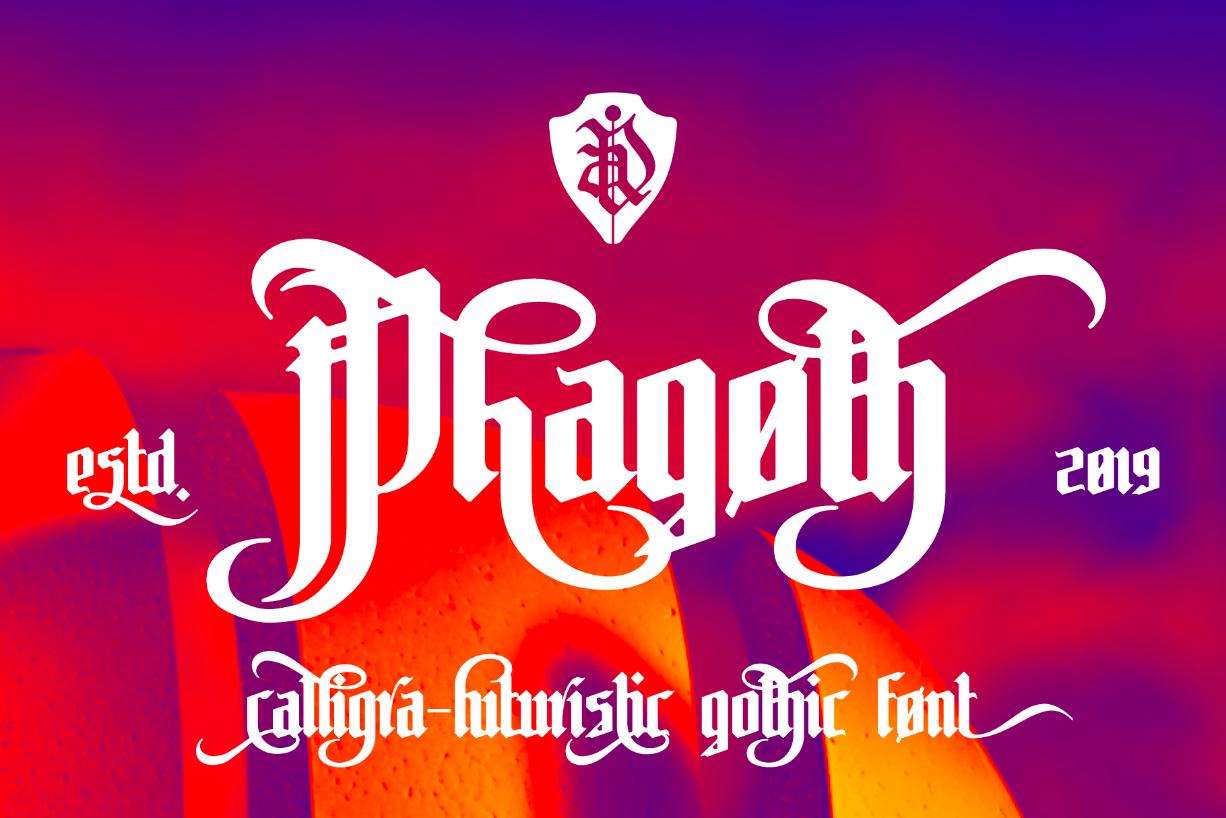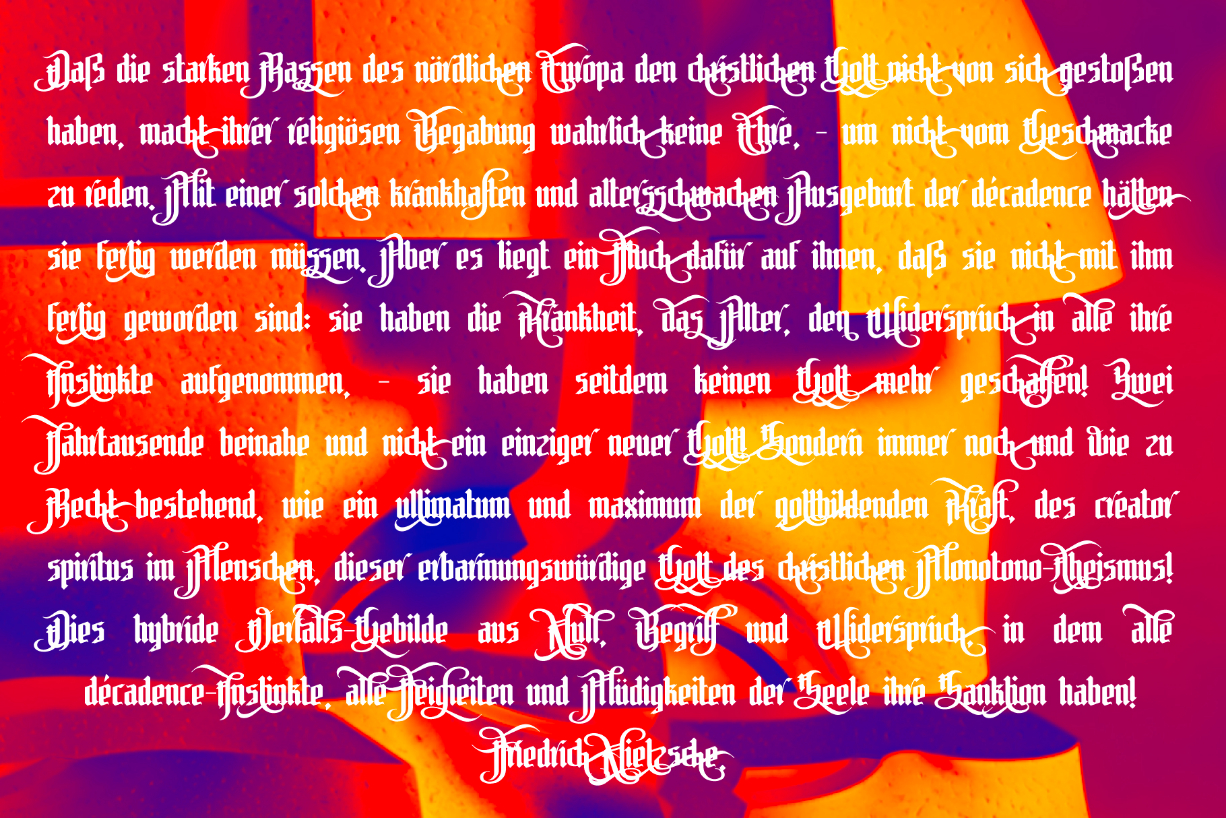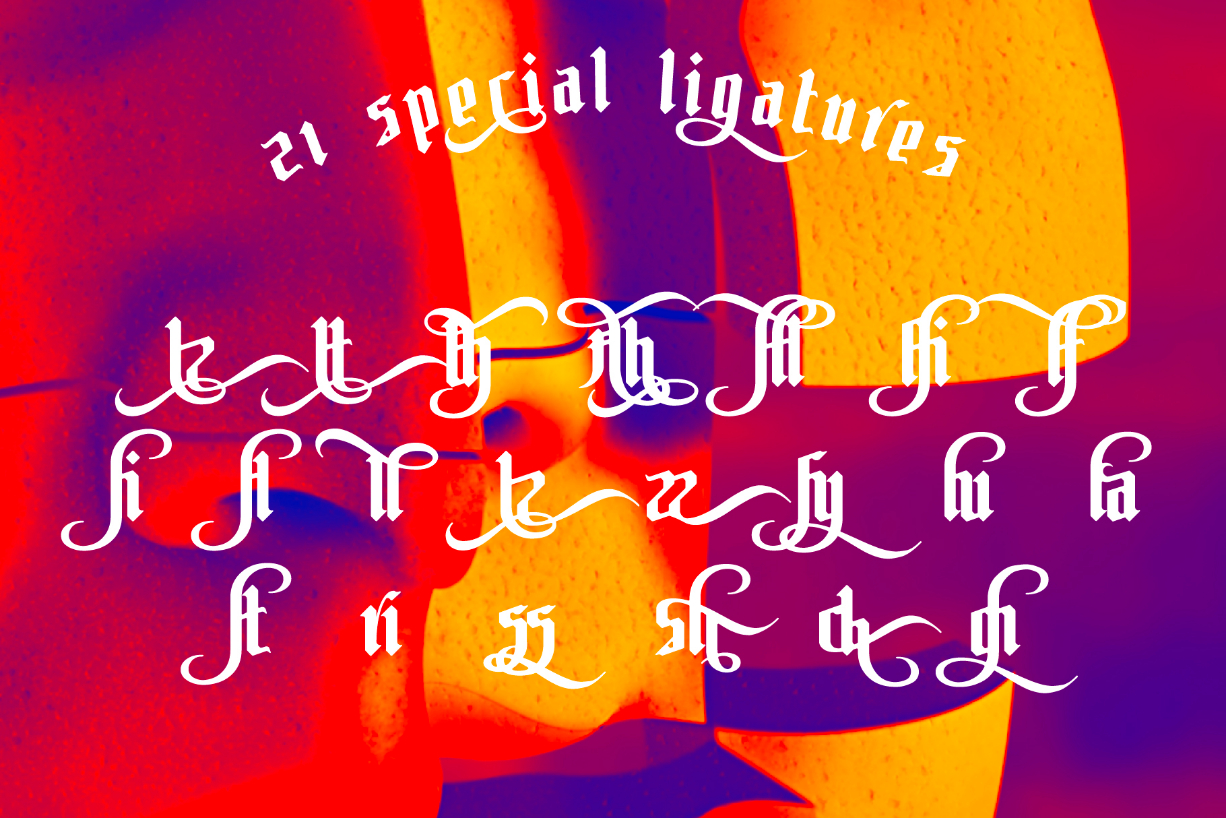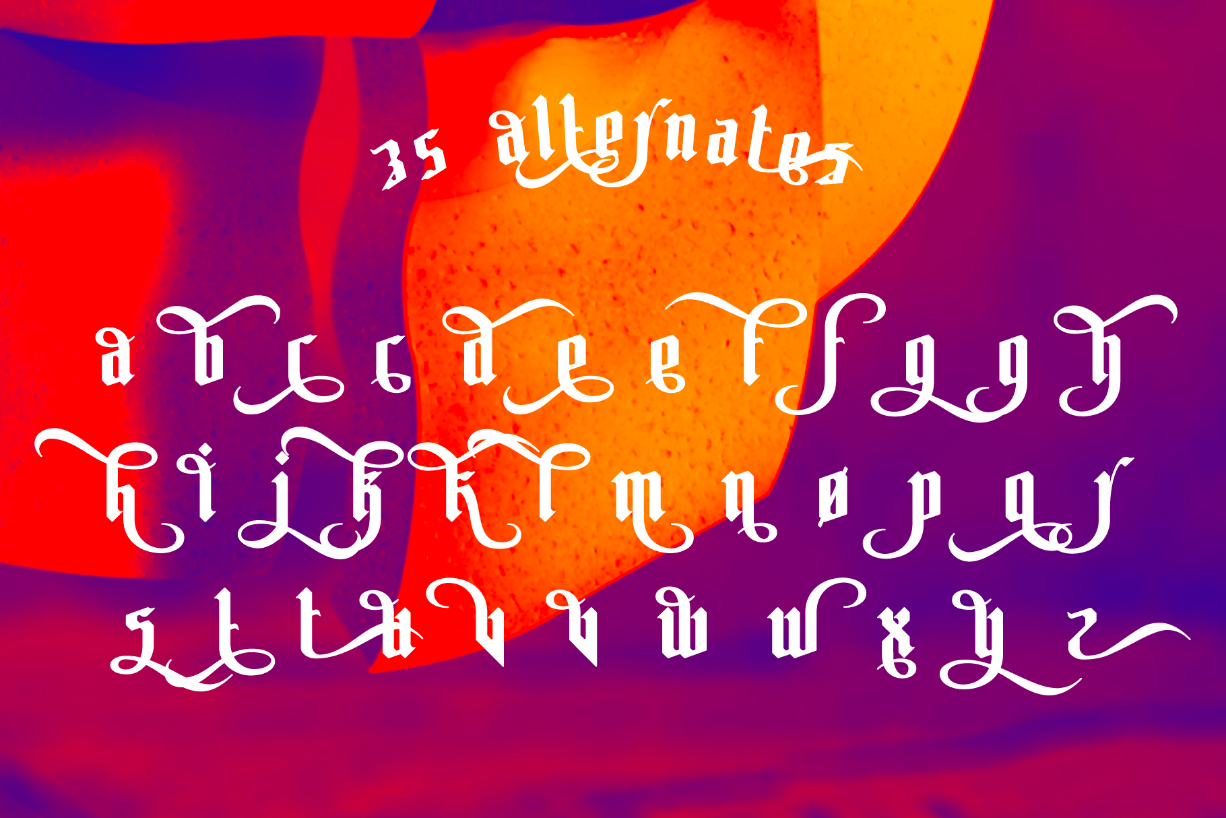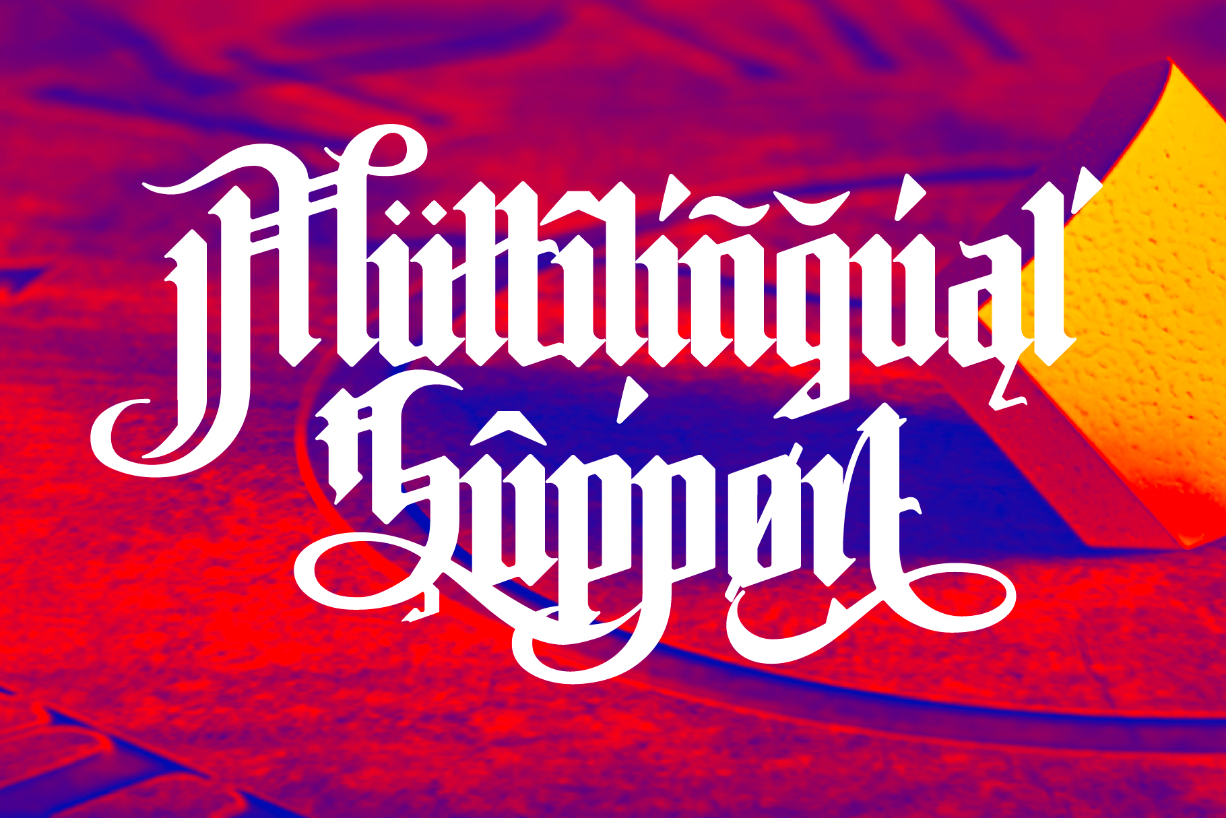
Phagoth Font
About Phagoth Font
Phagoth takes classic calligraphy to the future. This bold blackletter font is an adventurous and luscious typeface, perfect for making any font stand out.